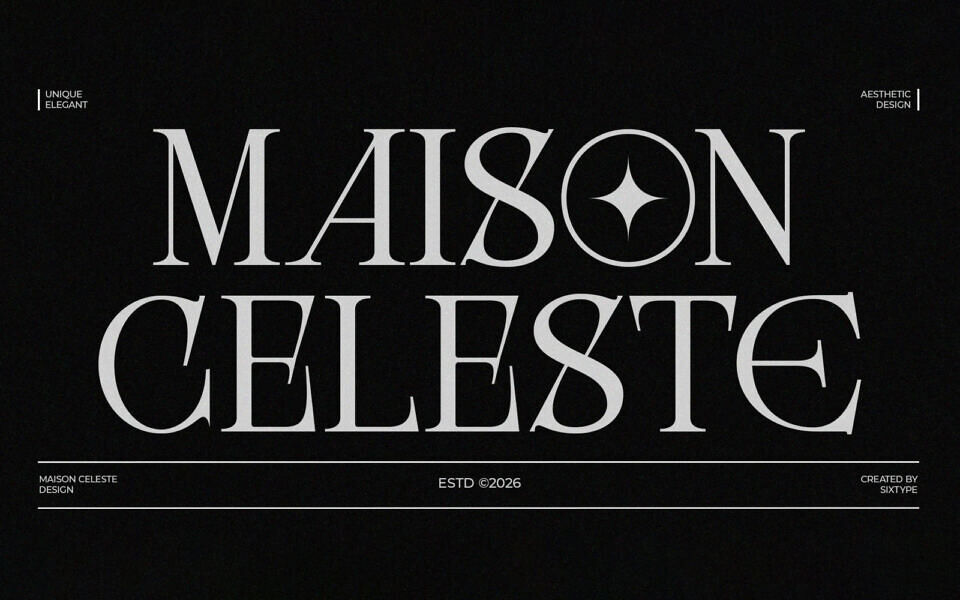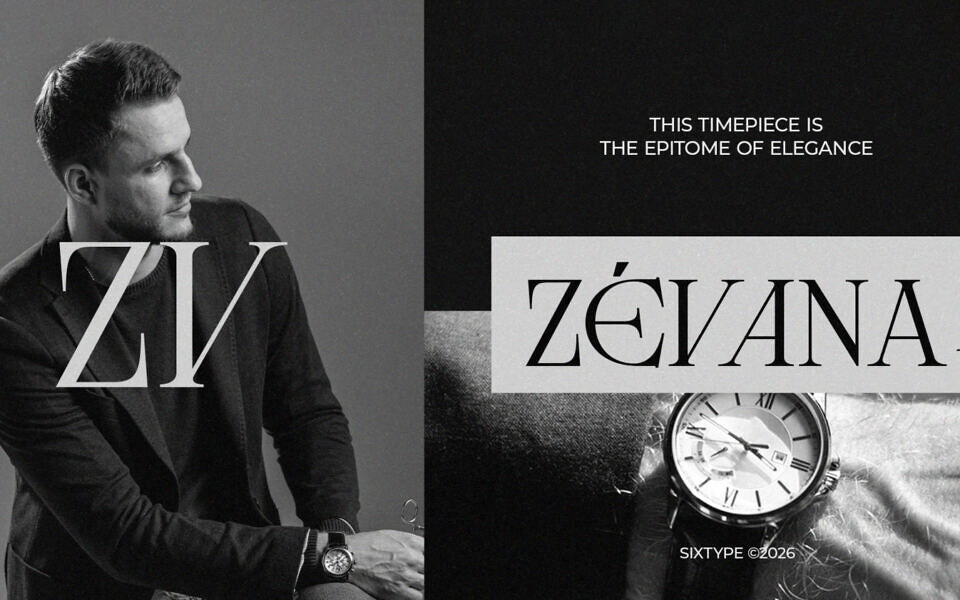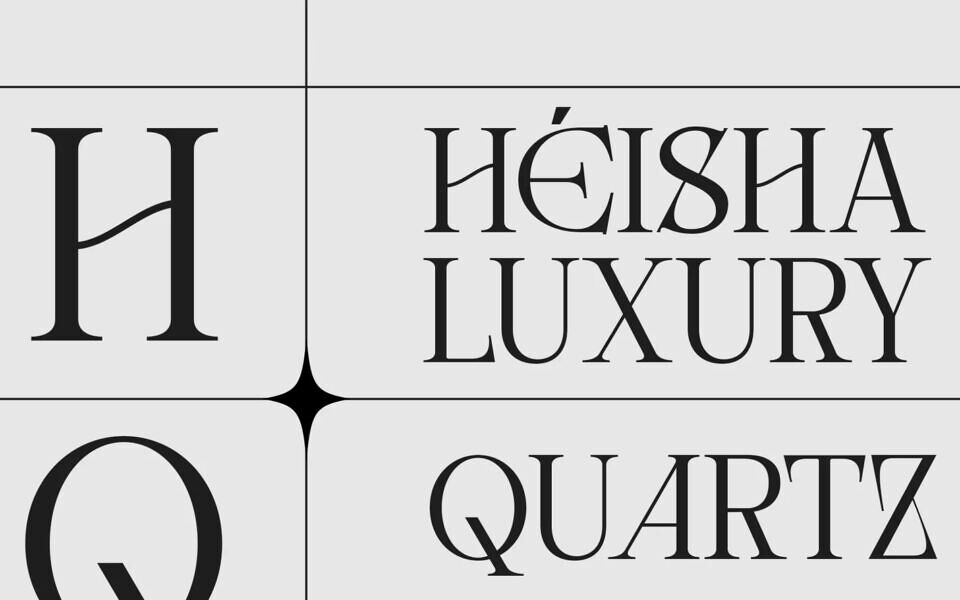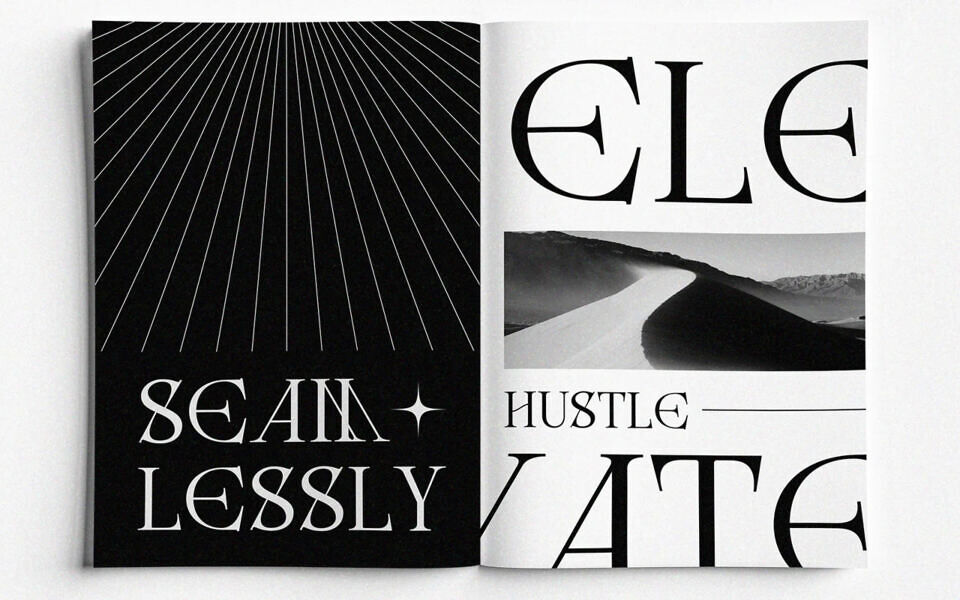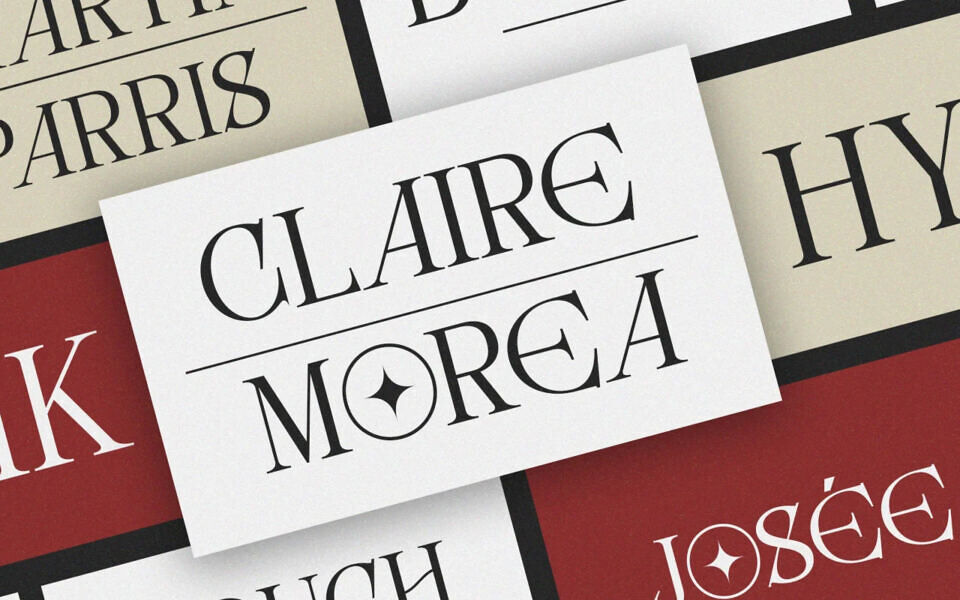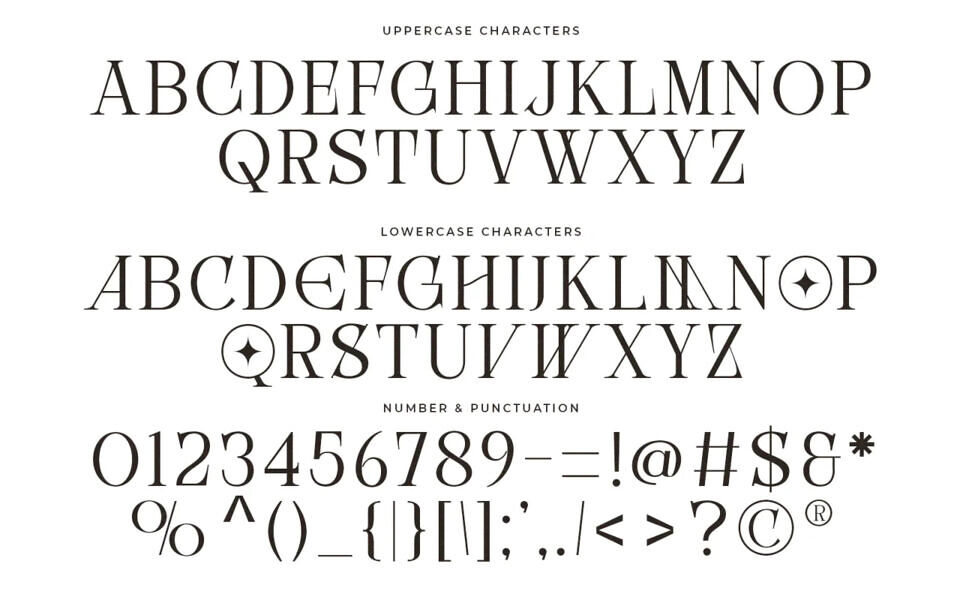
Maison Celeste is a refined modern serif typeface that embodies luxury, elegance, and high-end editorial design. With its high-contrast strokes, sharp serifs, and graceful curves, it seamlessly merges classic typographic tradition with contemporary sophistication.
Distinctive features, including sculpted terminals and stylized letterforms, contribute to its unique personality, making it an excellent choice for premium branding, fashion magazines, jewelry campaigns, and upscale packaging. Maison Celeste offers a timeless visual language that is both artistic and authoritative, ideal for designers aiming to create a bold yet elegant statement in their projects.